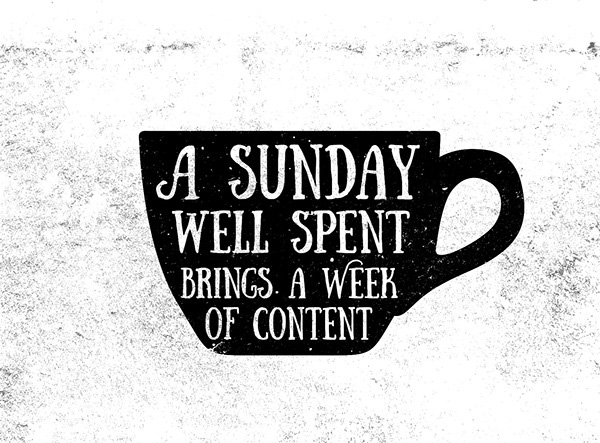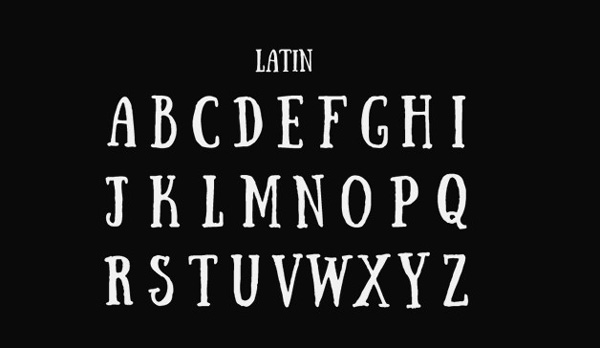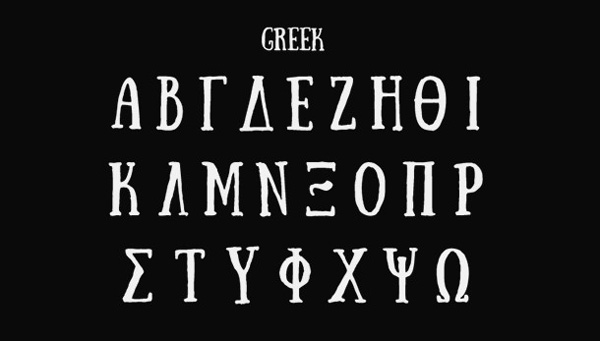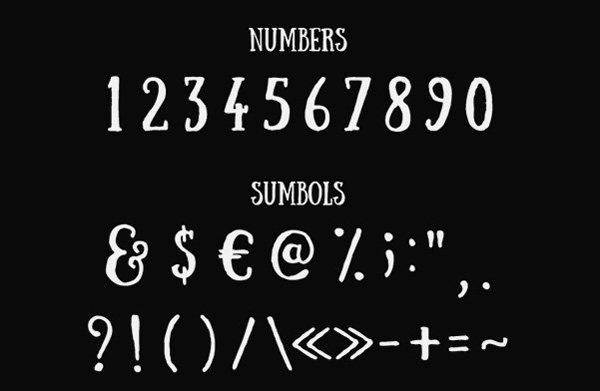
Sunday Font Style
Well,although we bring together free font collections time to time we decided to share a free font everyday and today’s free font Sunday is designed by Anastasia Dimitriadi.
Sunday is a vintage style hand lettering font.You can use it for your logos,posters etc..